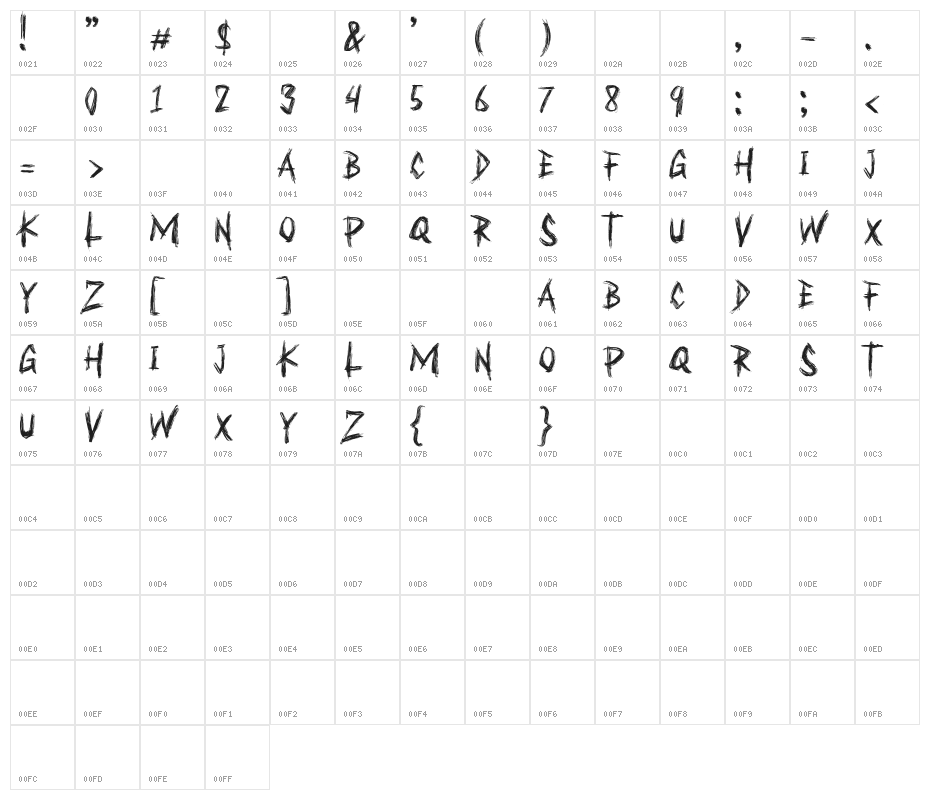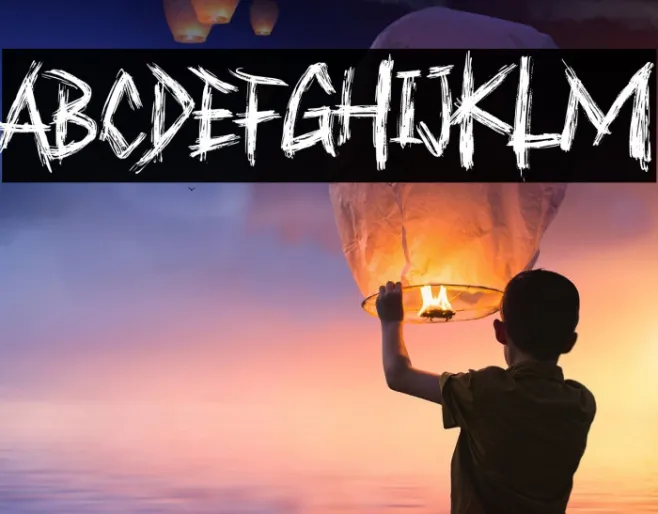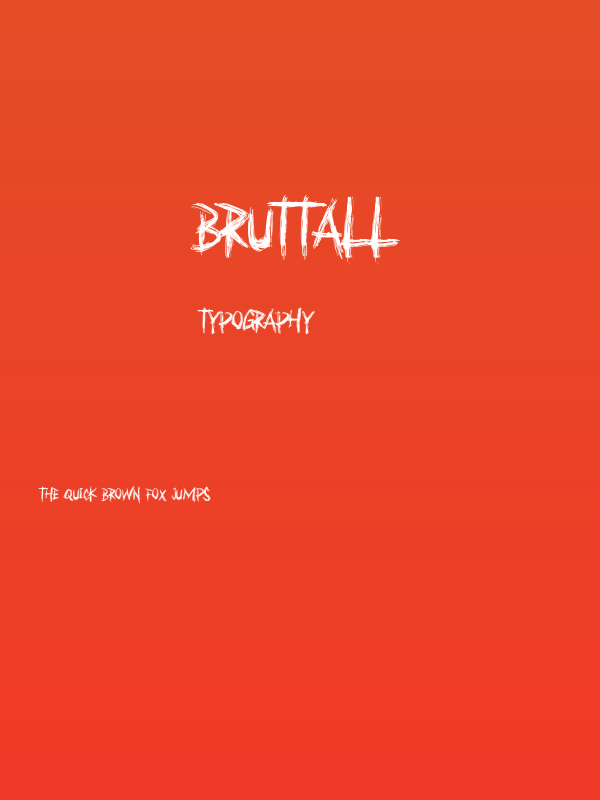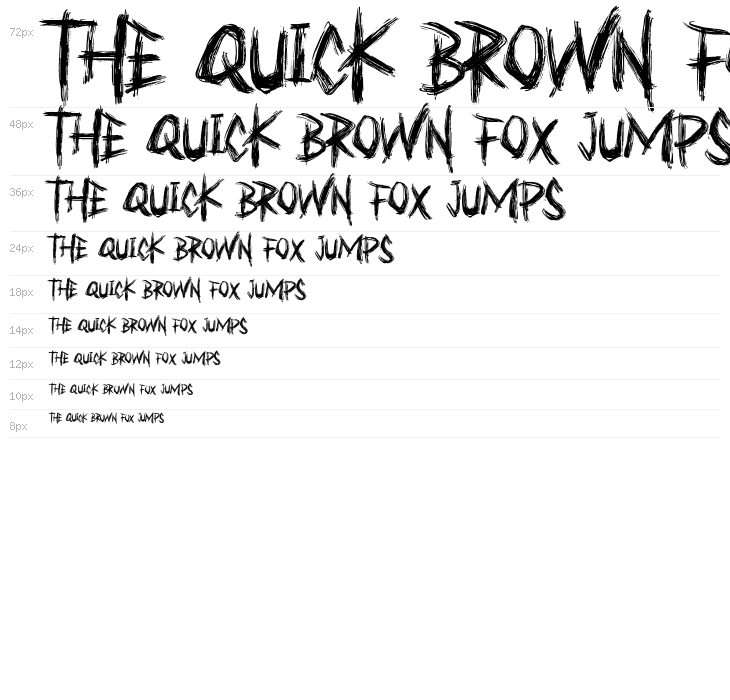
Bruttall Font
Bruttall Description
This font features a bold, expressive style with a hand-drawn appearance. The strokes are irregular and dynamic, giving each character a sense of movement and energy. The rough, textured edges create a raw, artistic feel, reminiscent of brush strokes or graffiti. This font captures attention with its unique and edgy design, making it ideal for projects that require a strong visual impact. The characters are well-defined yet maintain an organic, freeform quality that adds to its distinctive personality.
| Proposed Projects | Ideal for album covers, posters, street art designs, and any project needing a bold, artistic touch. |